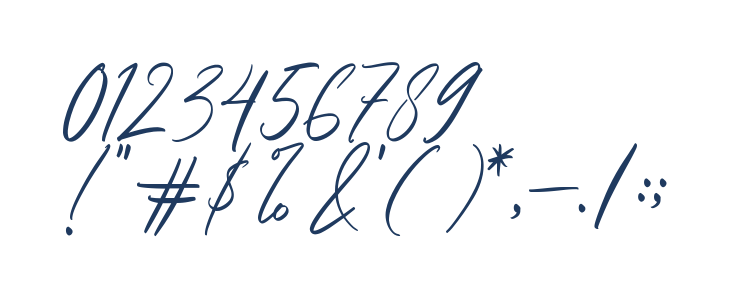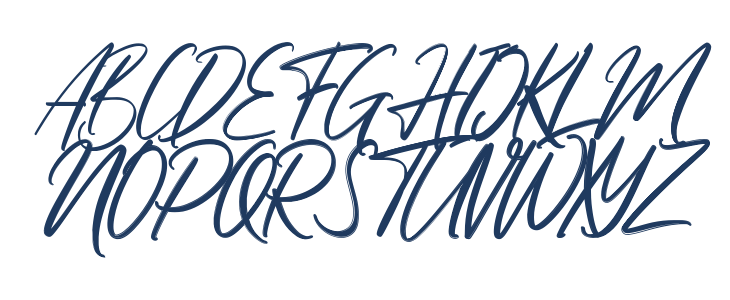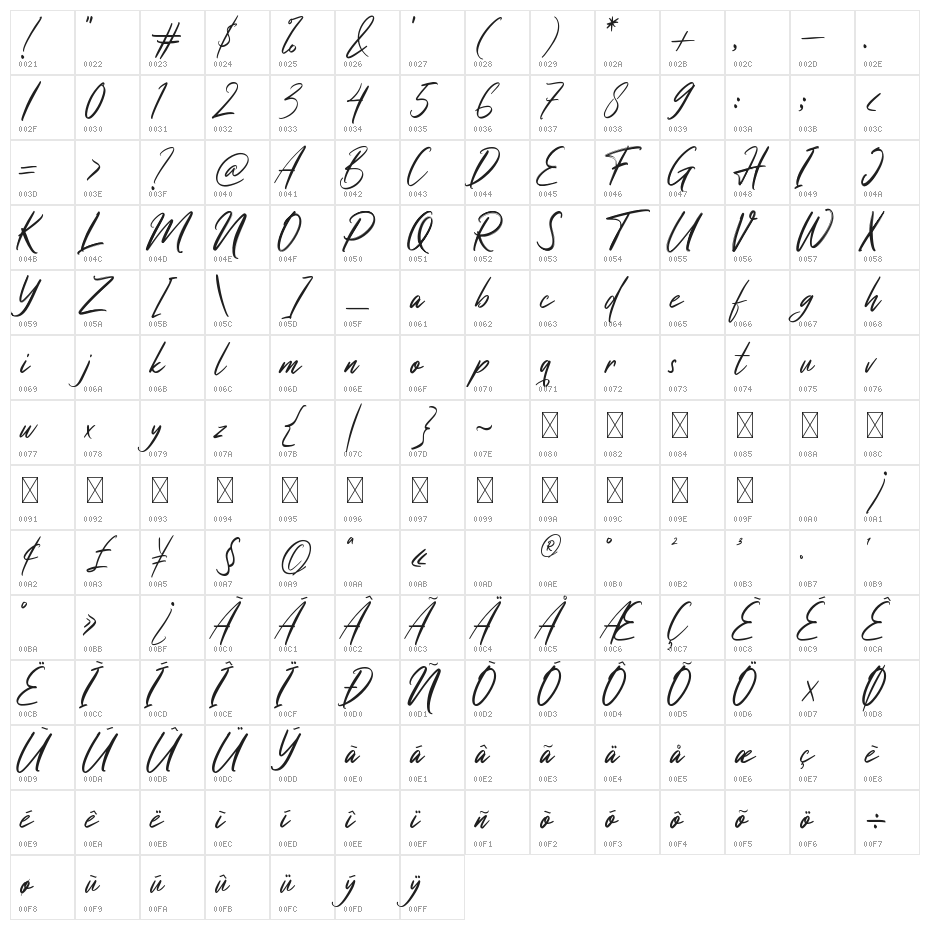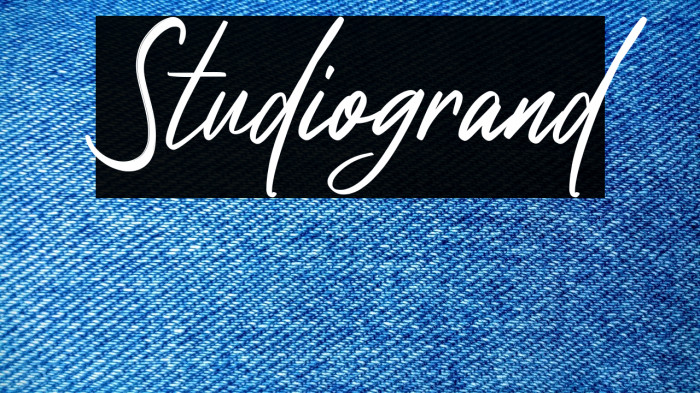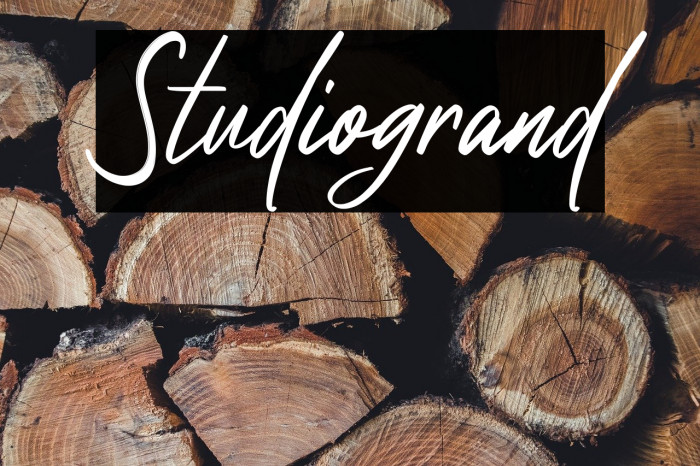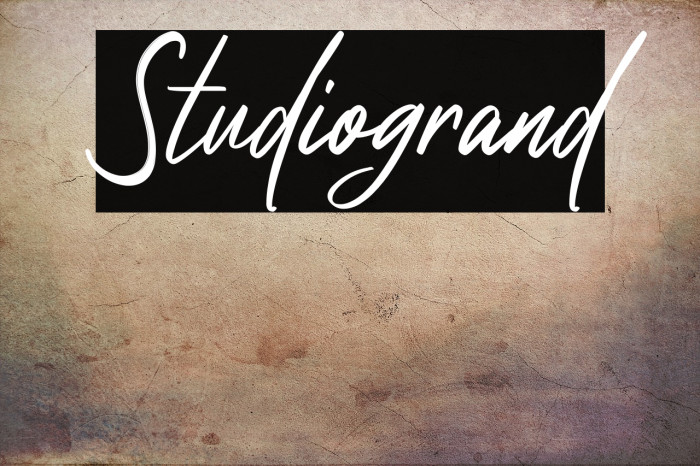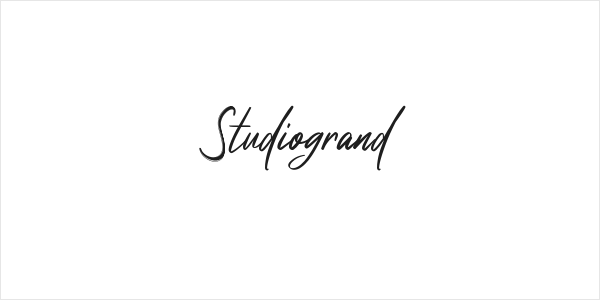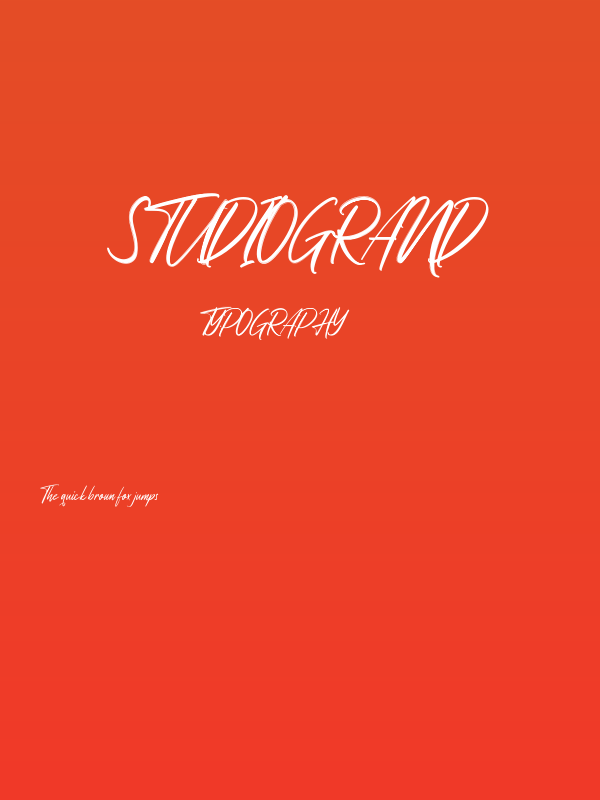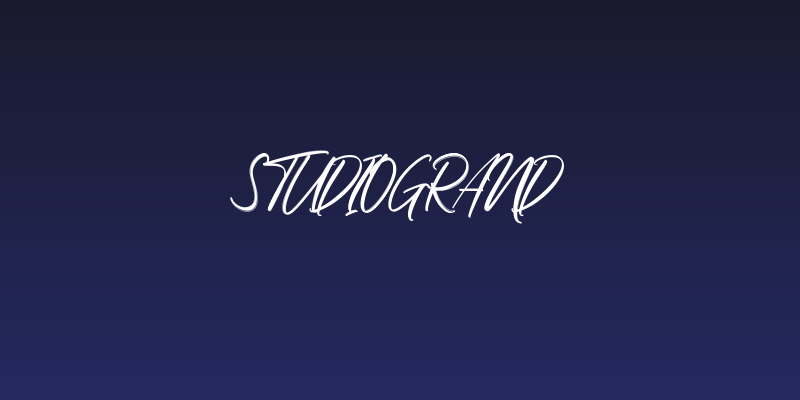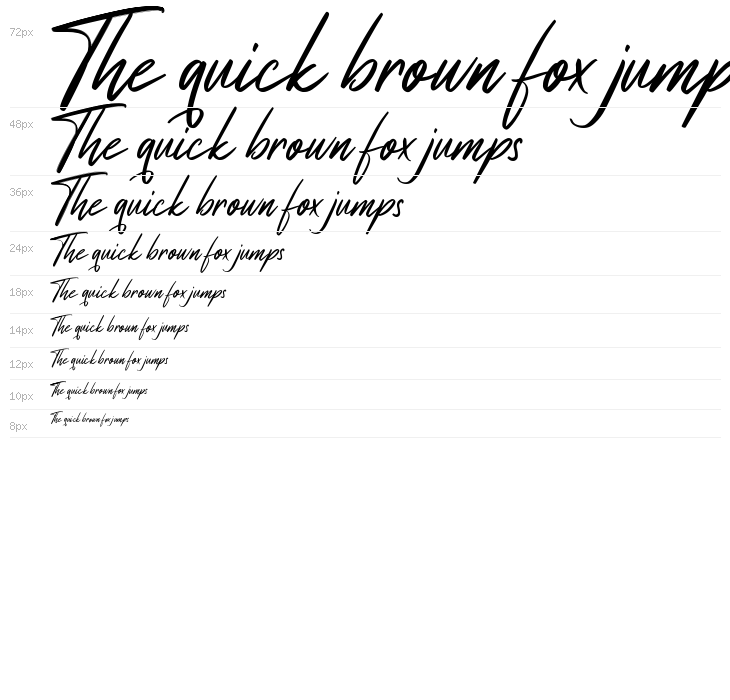
Studiogrand Font
Studiogrand Description
A dynamic, expressive handwritten script with tall, narrow letterforms and fluid, connected strokes. The font mimics natural handwriting with varying stroke thickness and a casual, energetic feel.
| Overall Style | Decorative, Expressive, Modern |
| Use Case | Logos, Headlines, Invitations, Posters |
| Proposed Projects | Greeting cards, personal branding, invitations, posters, artistic logos, social media graphics. |